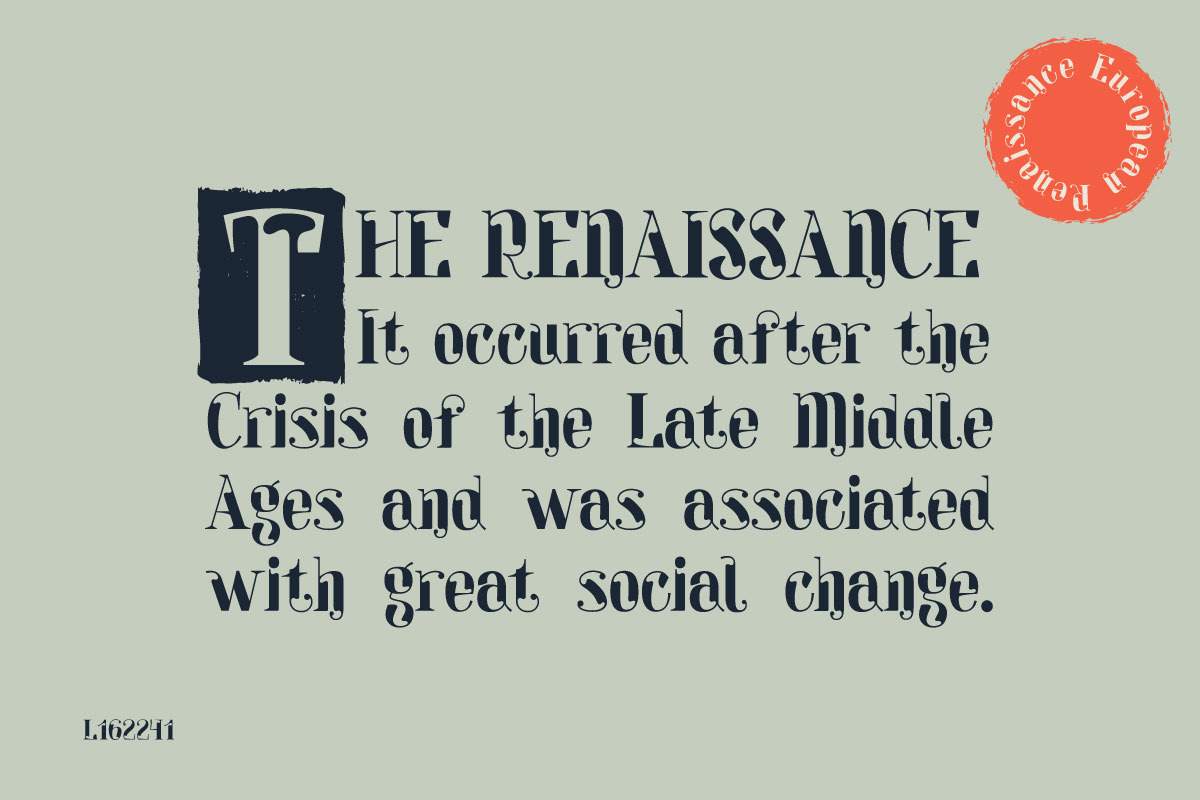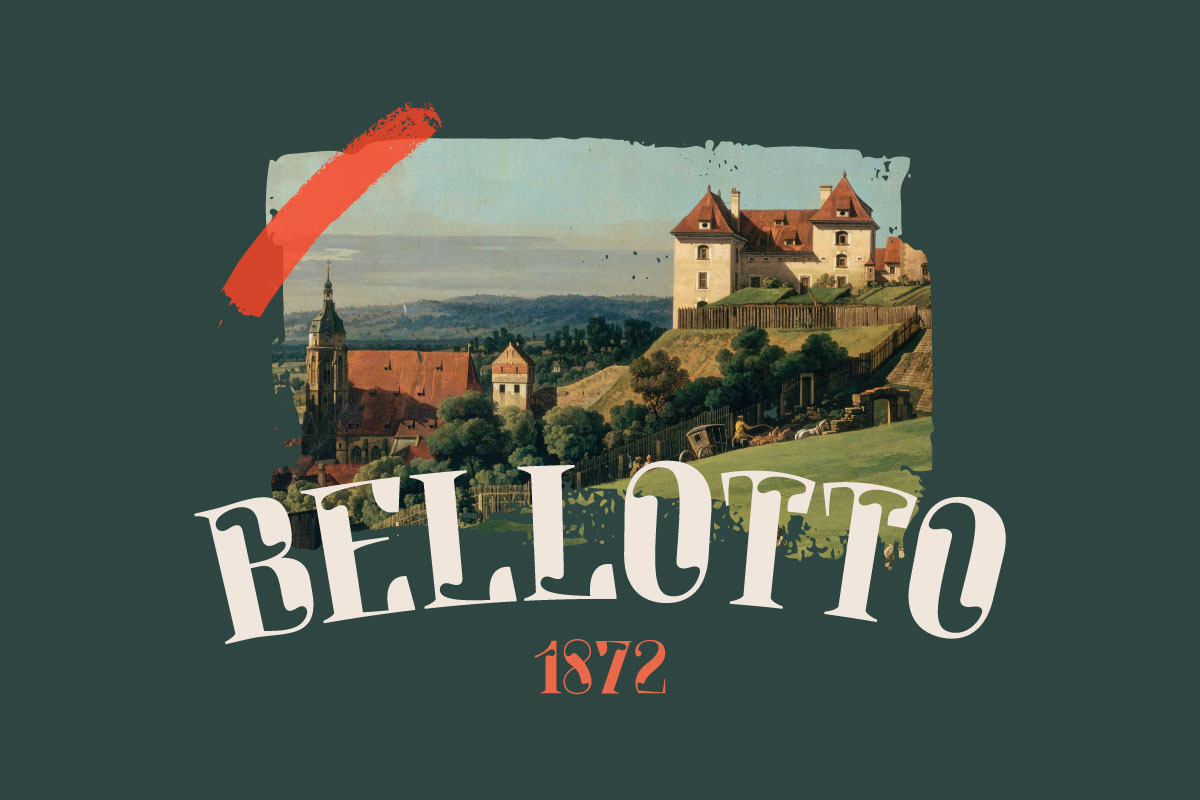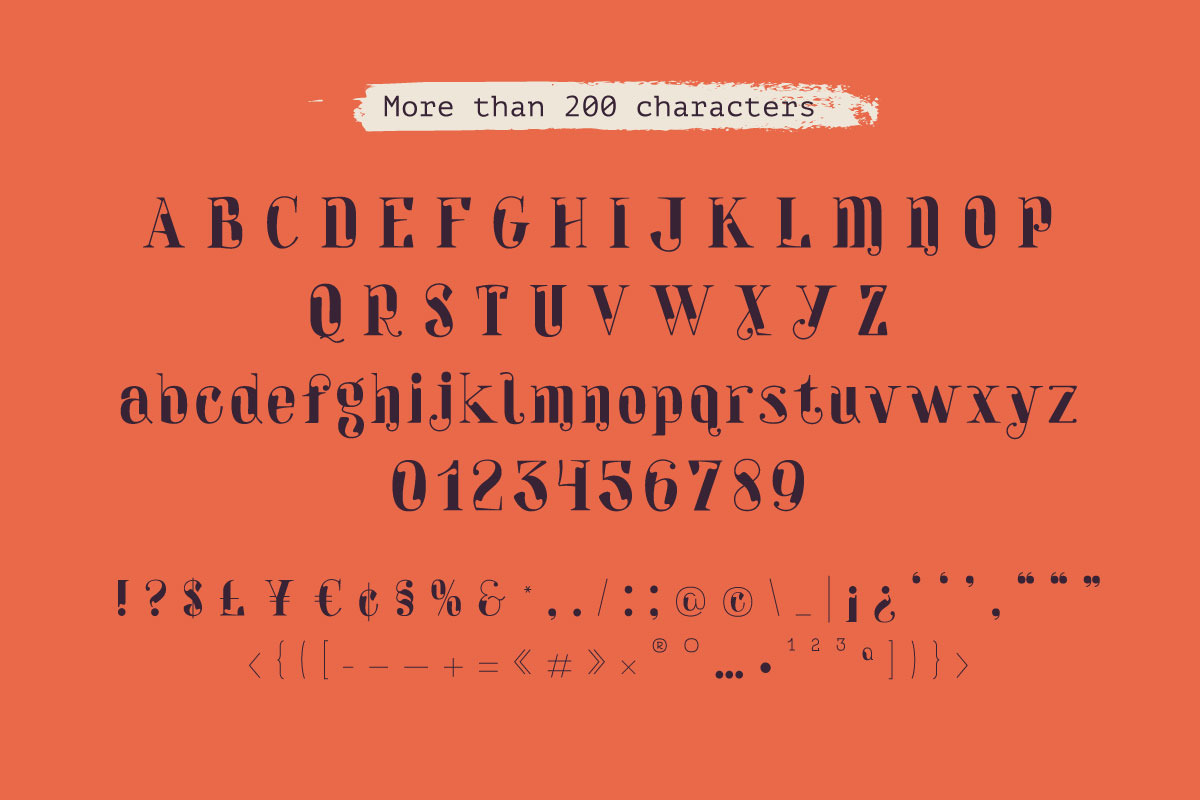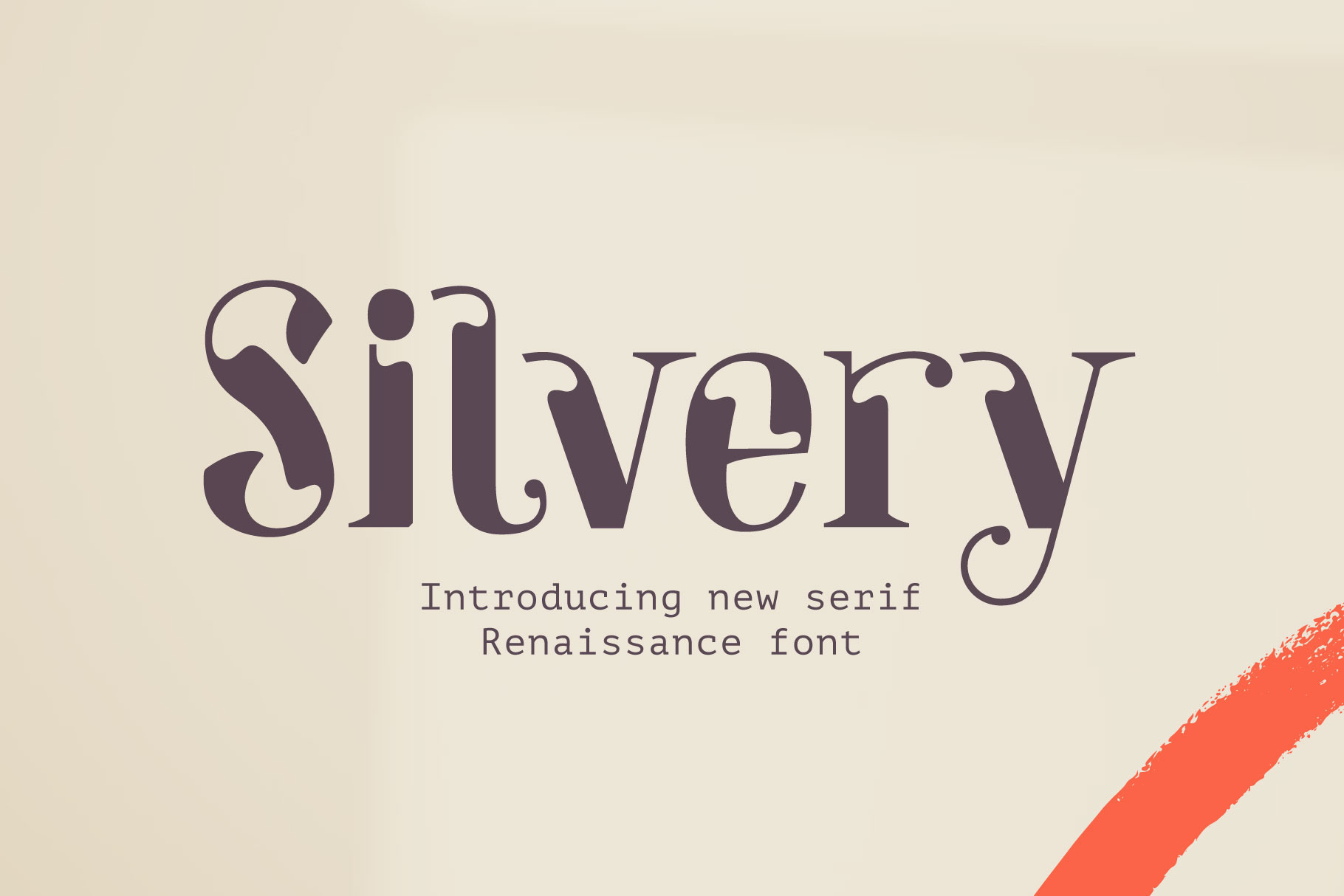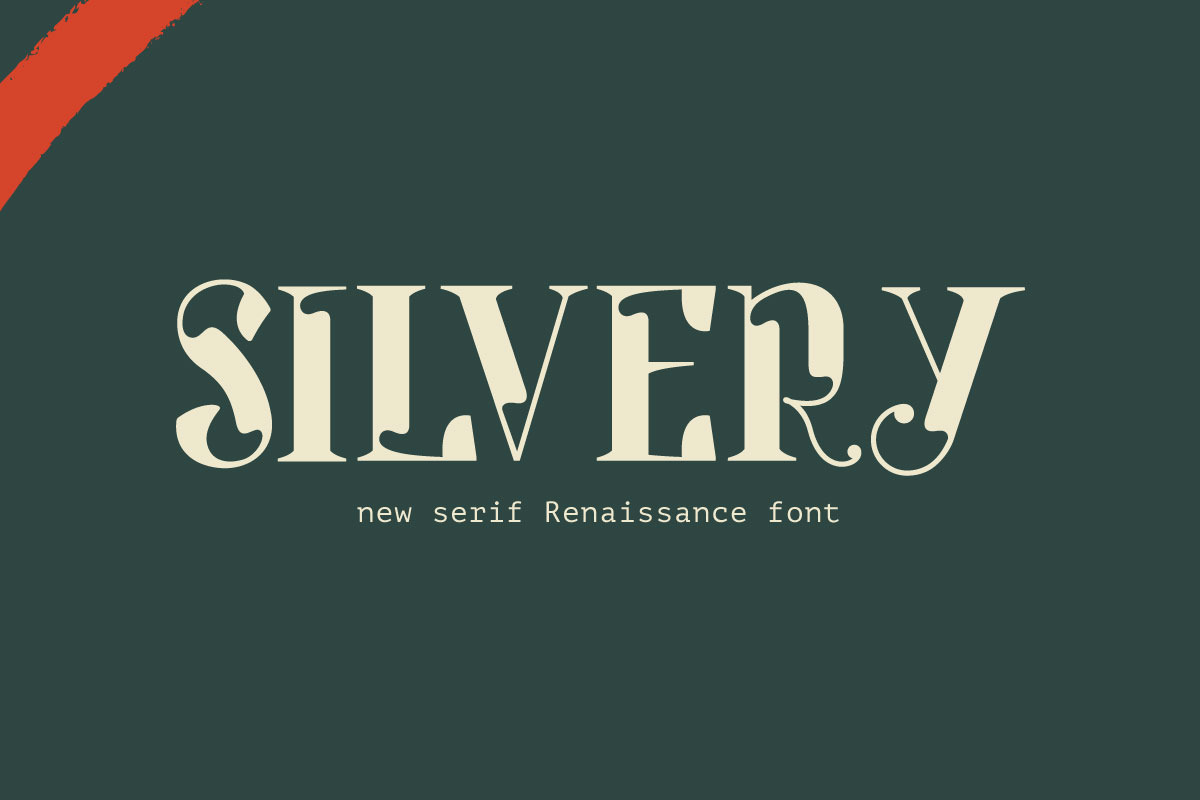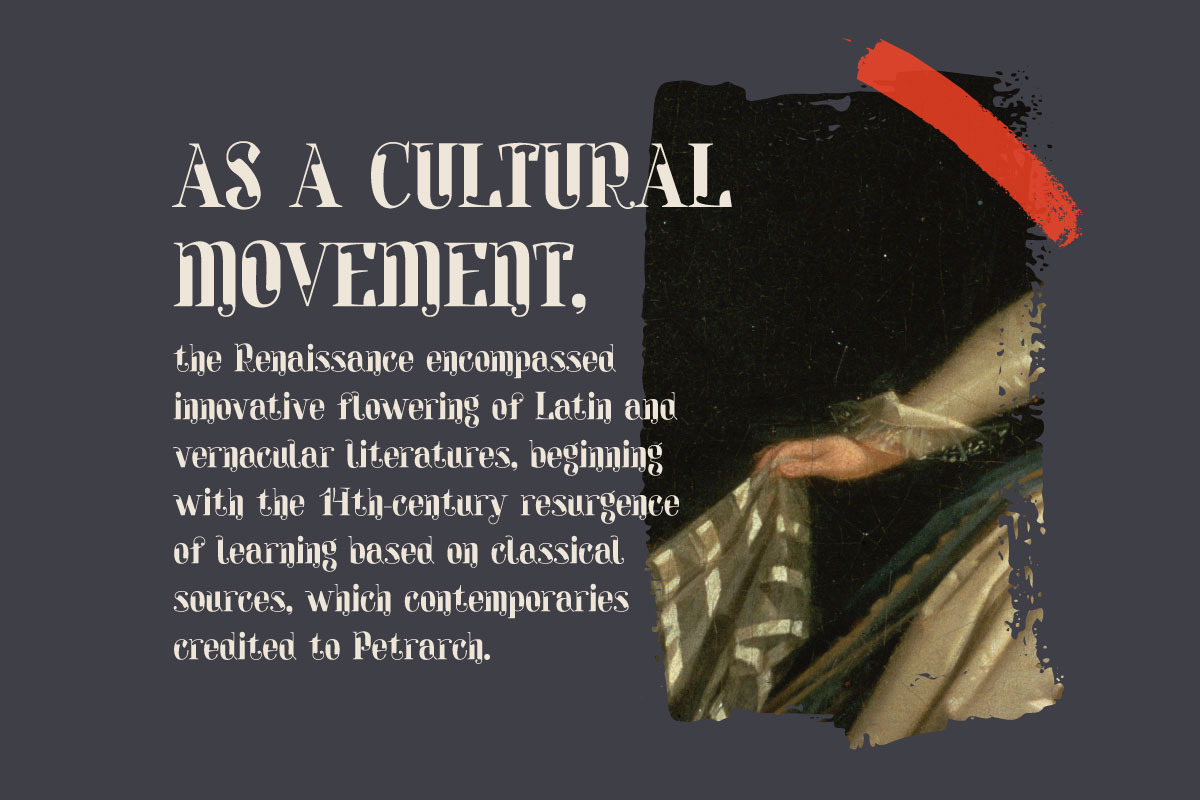
Silvery renaissance serif font
Introducing my new Renaissance serif condensed typeface Silvery. Vintage font with unique decoration. Perfect to use in any fashion labels, glamour posters, luxury identity, etc.